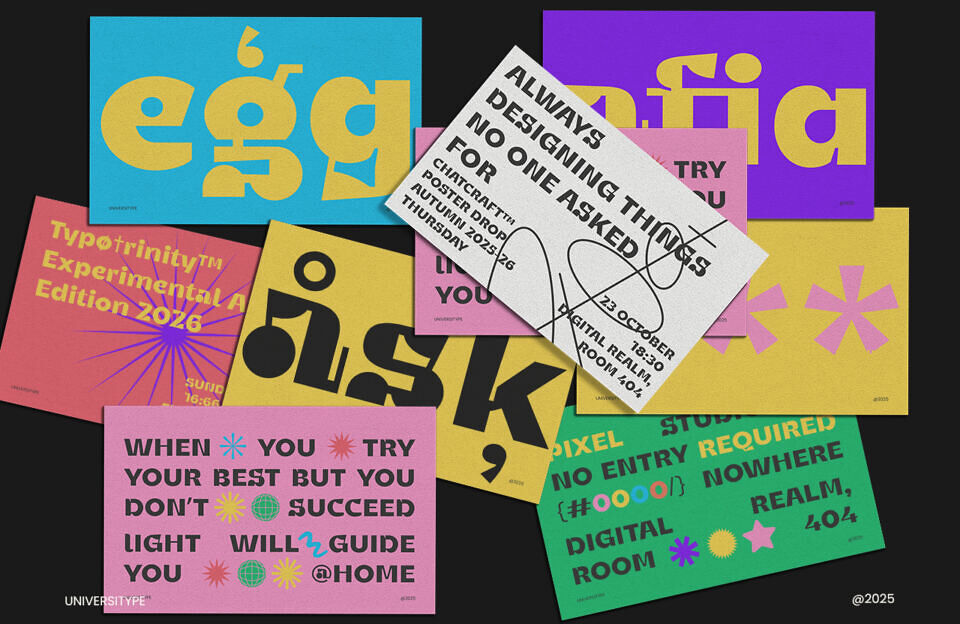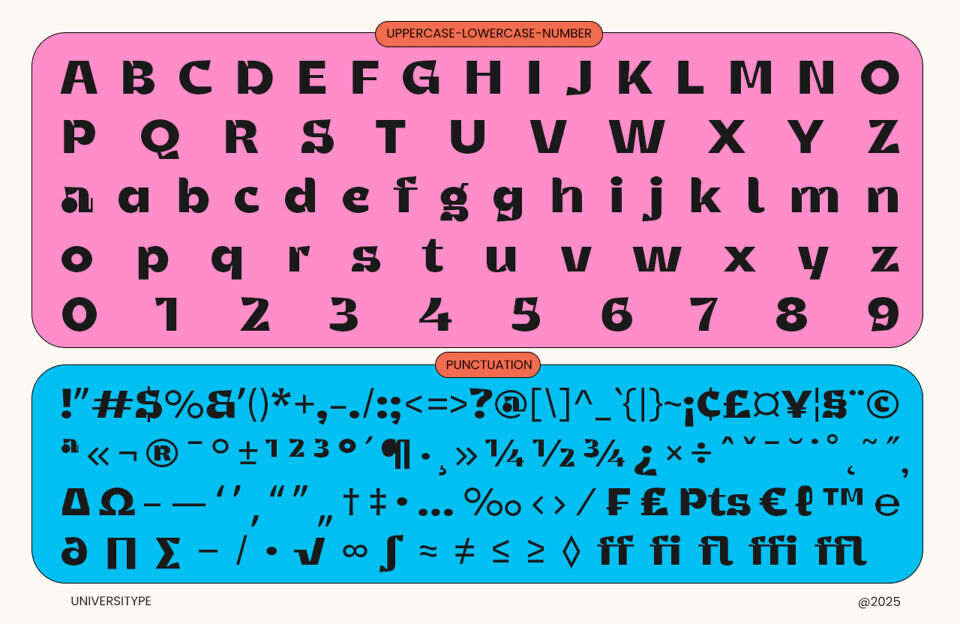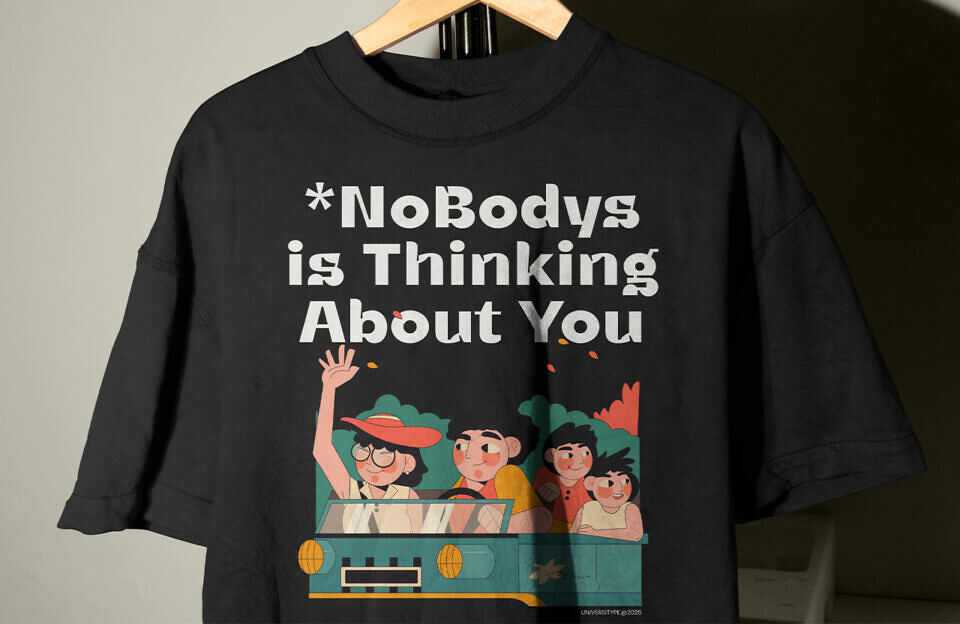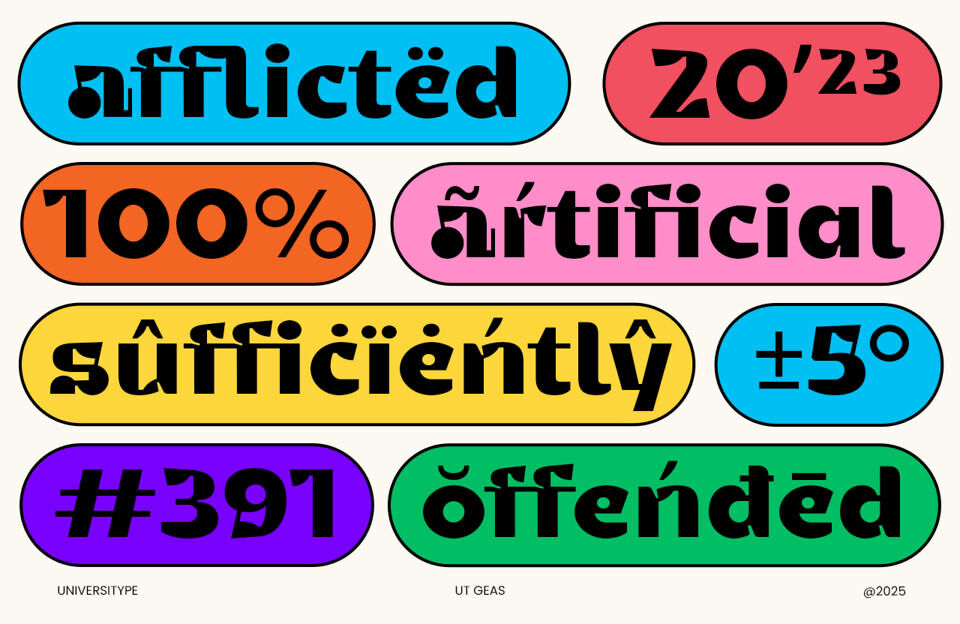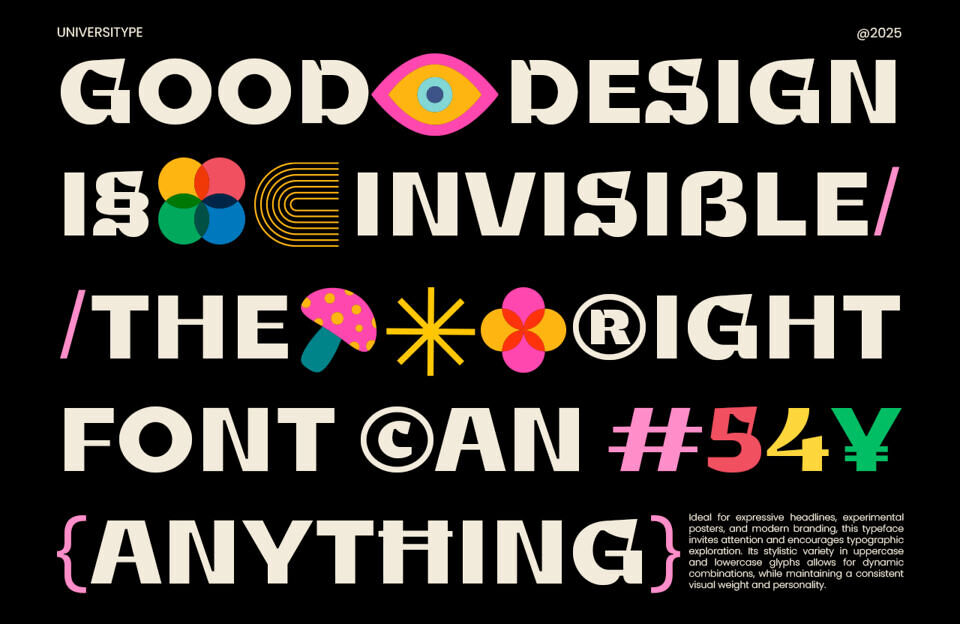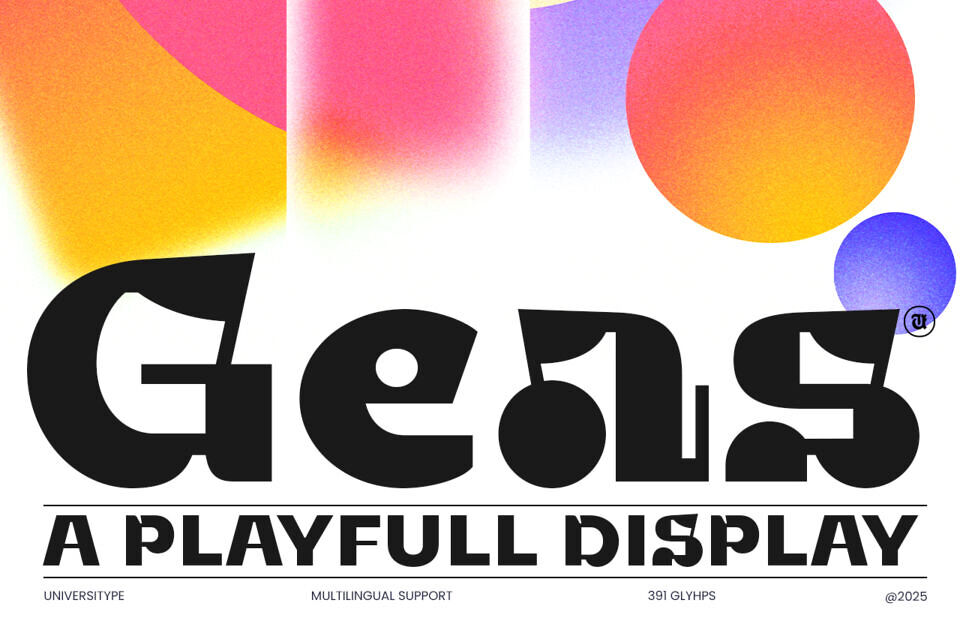
Ut Geas Display Font
UT Geas isn’t just another font. It bounces, wiggles, and grins its way across the page. Bold yet friendly, retro yet refreshingly modern—it’s the kind of type that makes you pause, smile, and say, “Okay, that’s fun.”